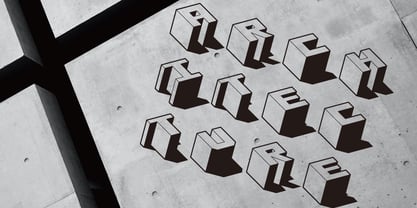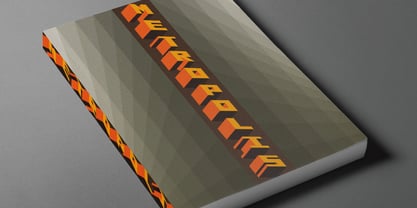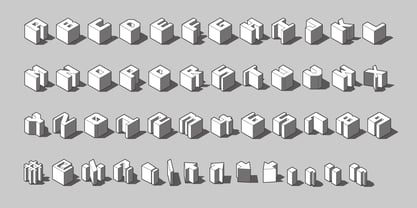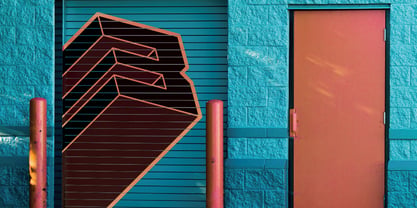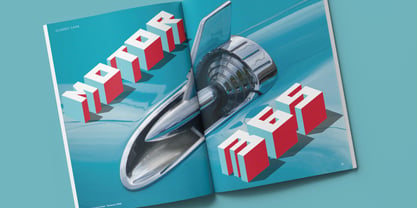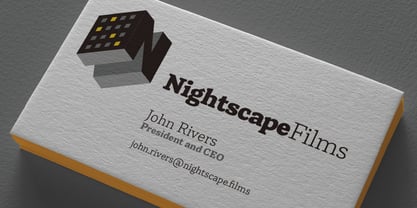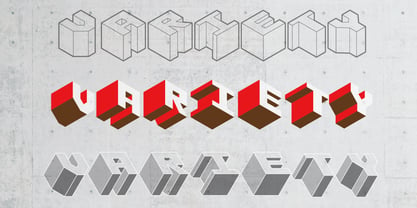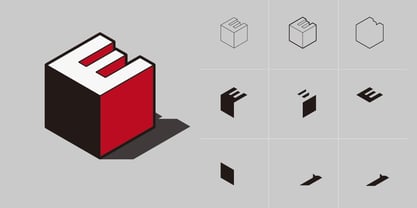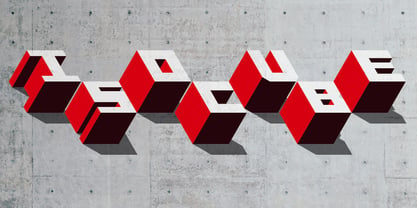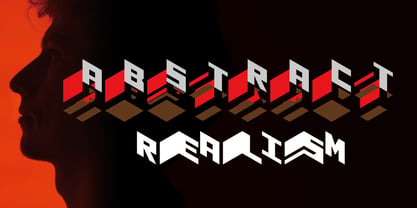
Isocube
The Isocube Font Family was designed by Kevin Foley and published by Kevin Foley Fonts. Isocube contains 9 styles and family package options. More about this family
Isocube is a striking, layered isometric display typeface designed for making bold statements in identity design, publication design, advertising, and sign design. Create stunning, customizable designs with this versatile 9-layer font. Stack multiple layers and mix and match them to achieve your desired aesthetic. Rotate individual characters or words for fresh combinations, and convert the font to outlines to stretch or shorten letters for even more creative effects. For optimal results in Illustrator and InDesign, set kerning to 'Metrics' to ensure all layers align correctly. This font is perfect for designers looking to enhance their projects with a unique and dynamic typographic style.